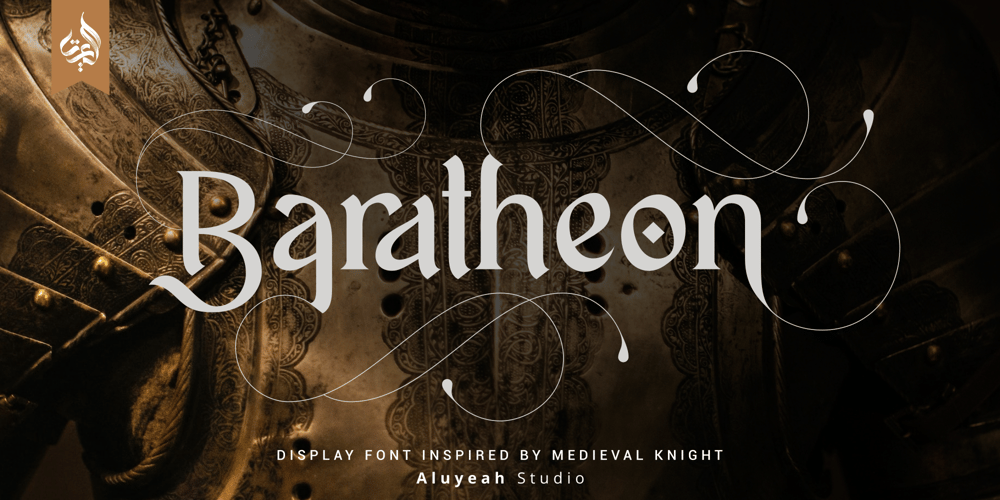
Al Baratheon Font Family was designed by Linggar Sundoro and published by Aluyeah Studio. Al Baratheon contains 1 styles and family package options. Hello Aluyeaholics!Be the King or Queen of your project with Baratheon. This display font is inspired by Medieval Knights and crafted with attention to detail. Feel like a Lord or Lady and show your inner King or Queen with Baratheon. Coming with 200+ stunning and super easy to use alternates and ligatures with quick access. To get results like the preview just type B.2a.7r.ath.17eo.2n.14